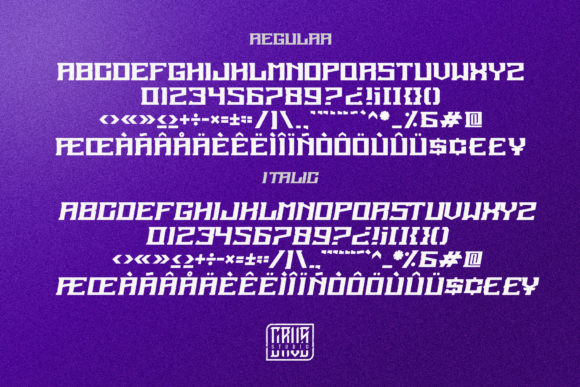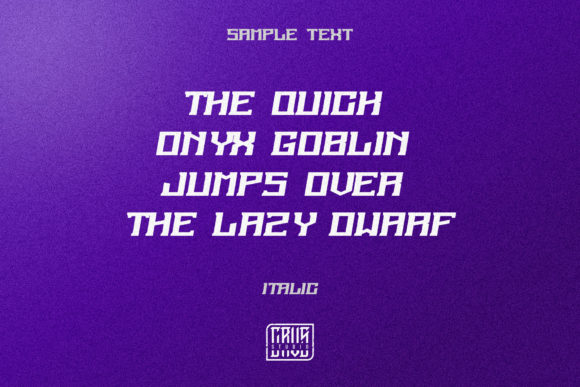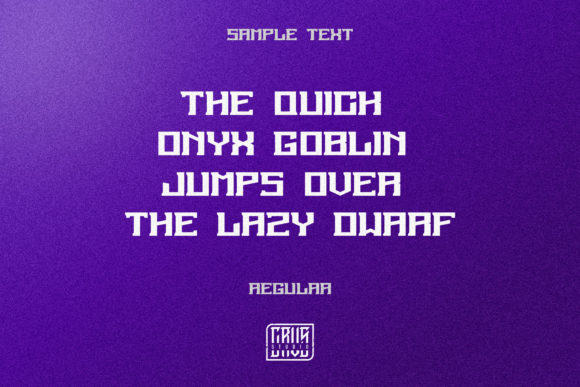
Introduction to Insurgent Font
Insurgent is a bold and incredibly distinct display font.
It sends out a strong vibe and it will most certainly make your design ideas stand out .
Why Choose Insurgent Font?
Insurgent Font offers exceptional quality and versatility, making it a valuable addition to your design toolkit. Whether you’re creating for personal projects or commercial use, Insurgent Font delivers professional results.